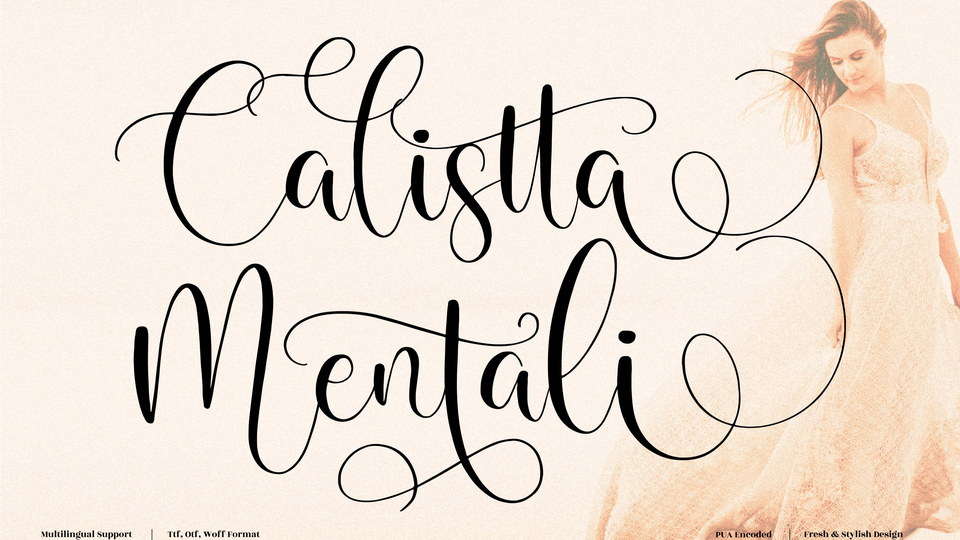
Download Calistta Mentali font, a beautiful, well balanced and stylish script typeface. Calistta Mentali is defined by smooth curves and is perfect for fashion branding or editorial designs.